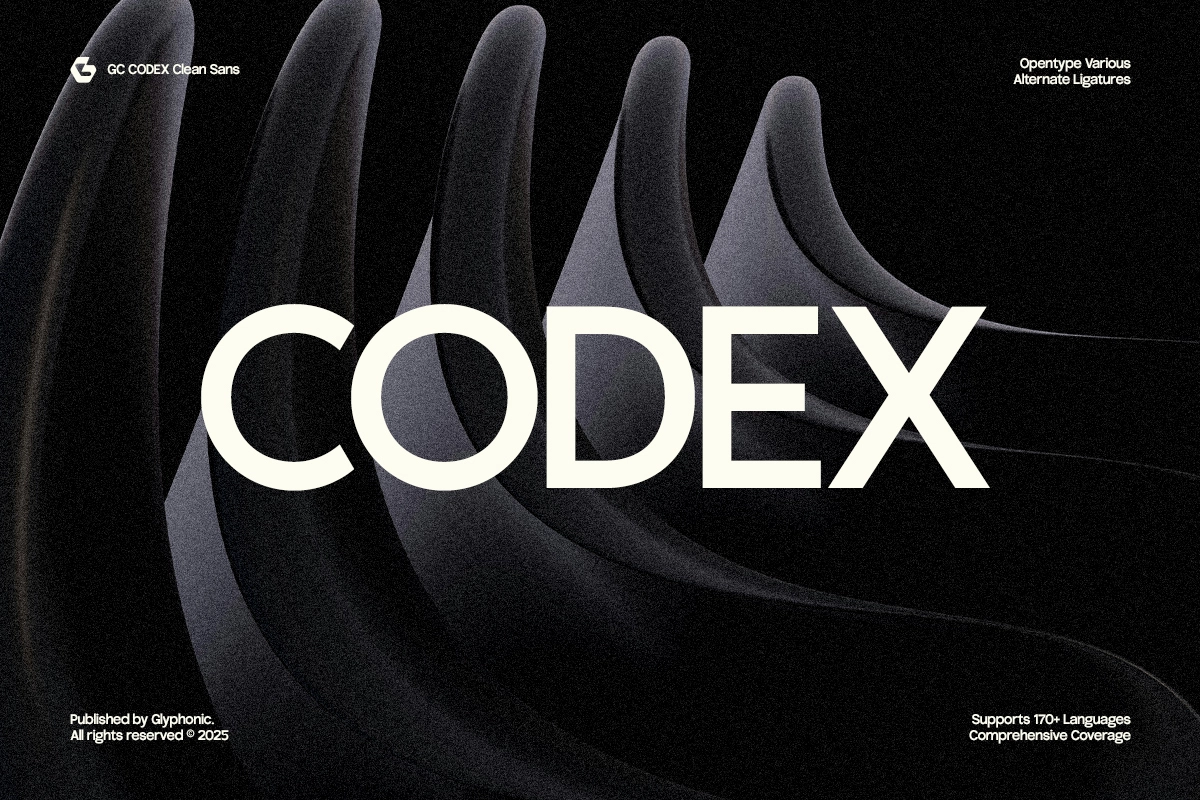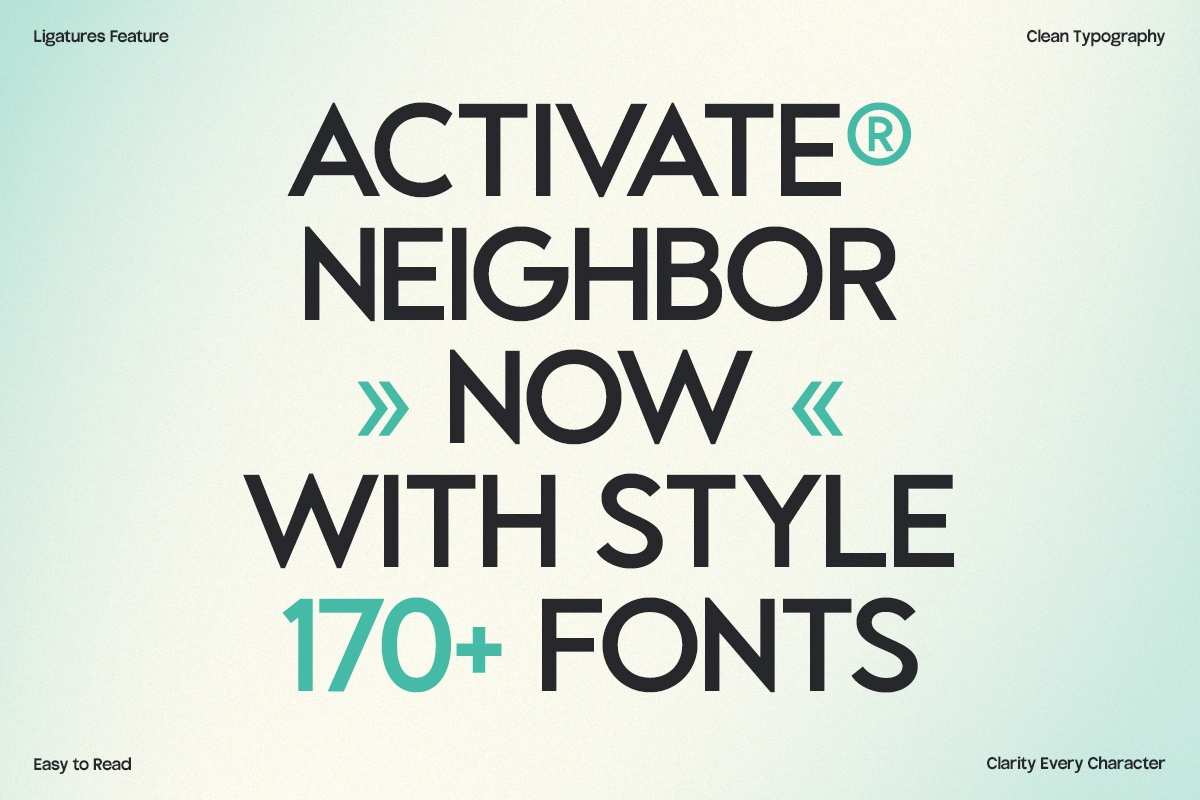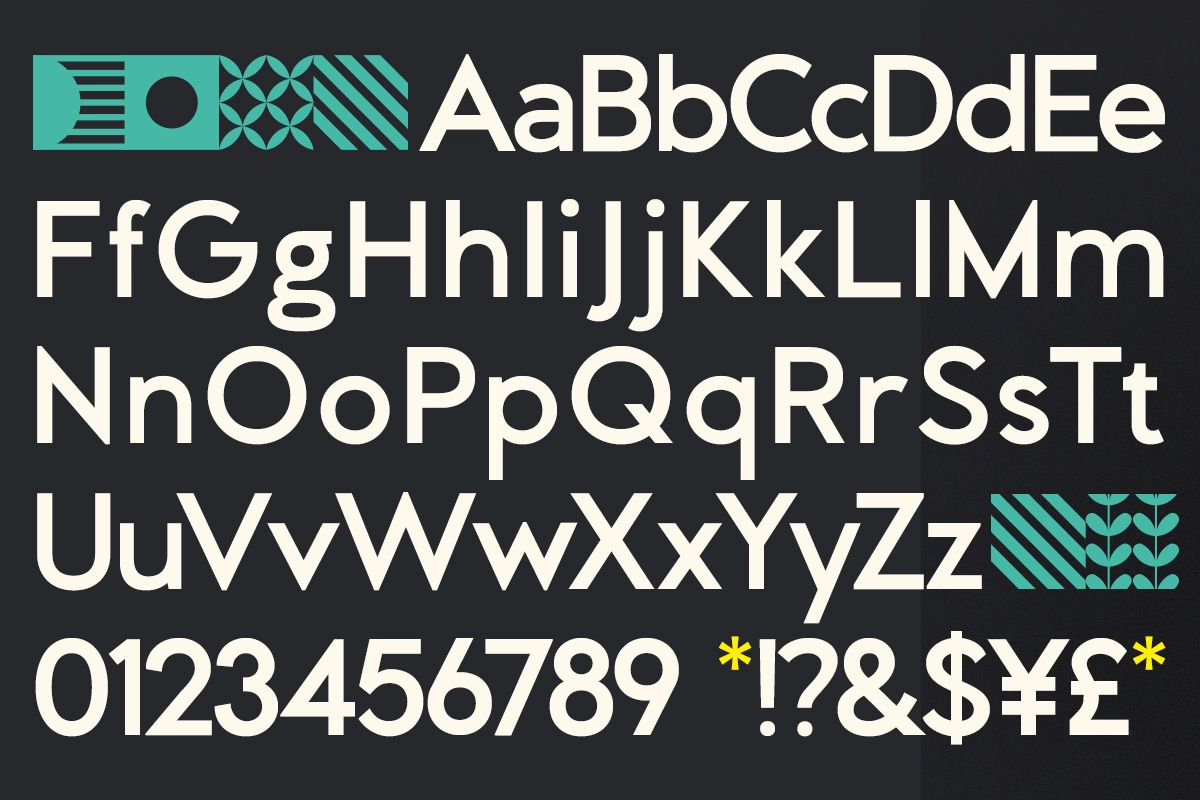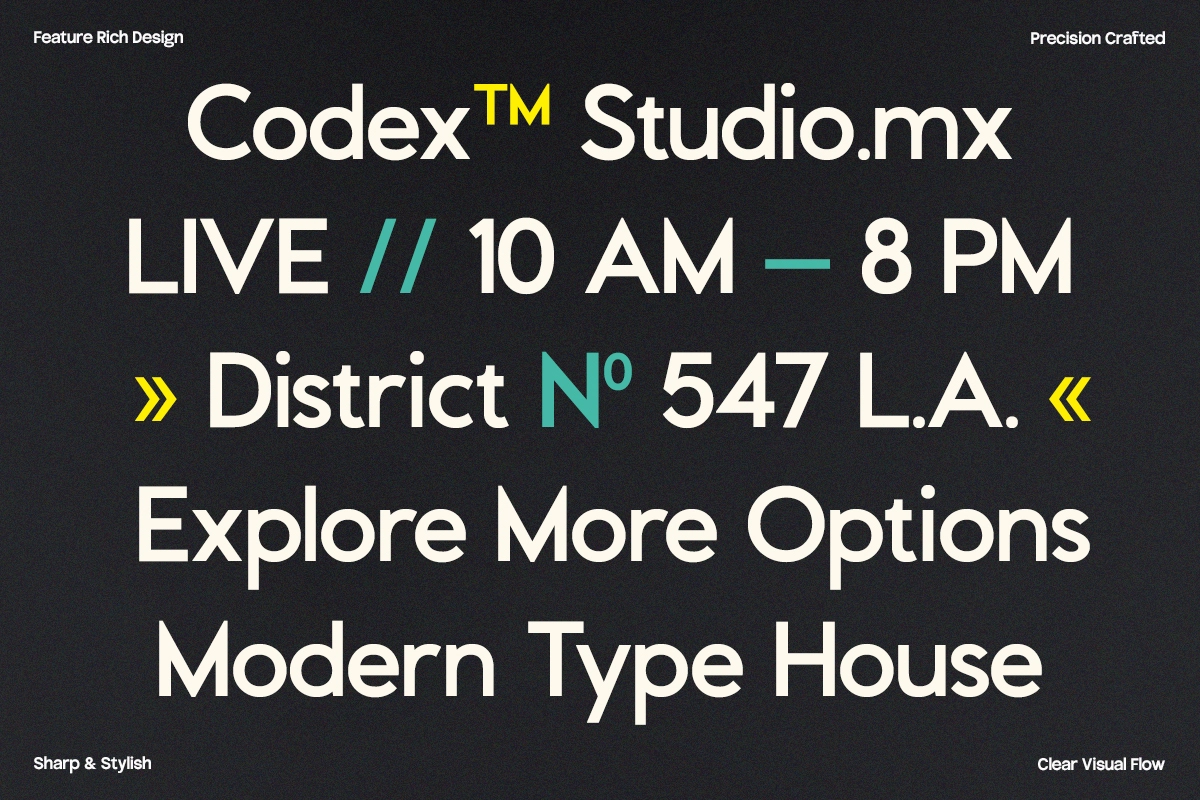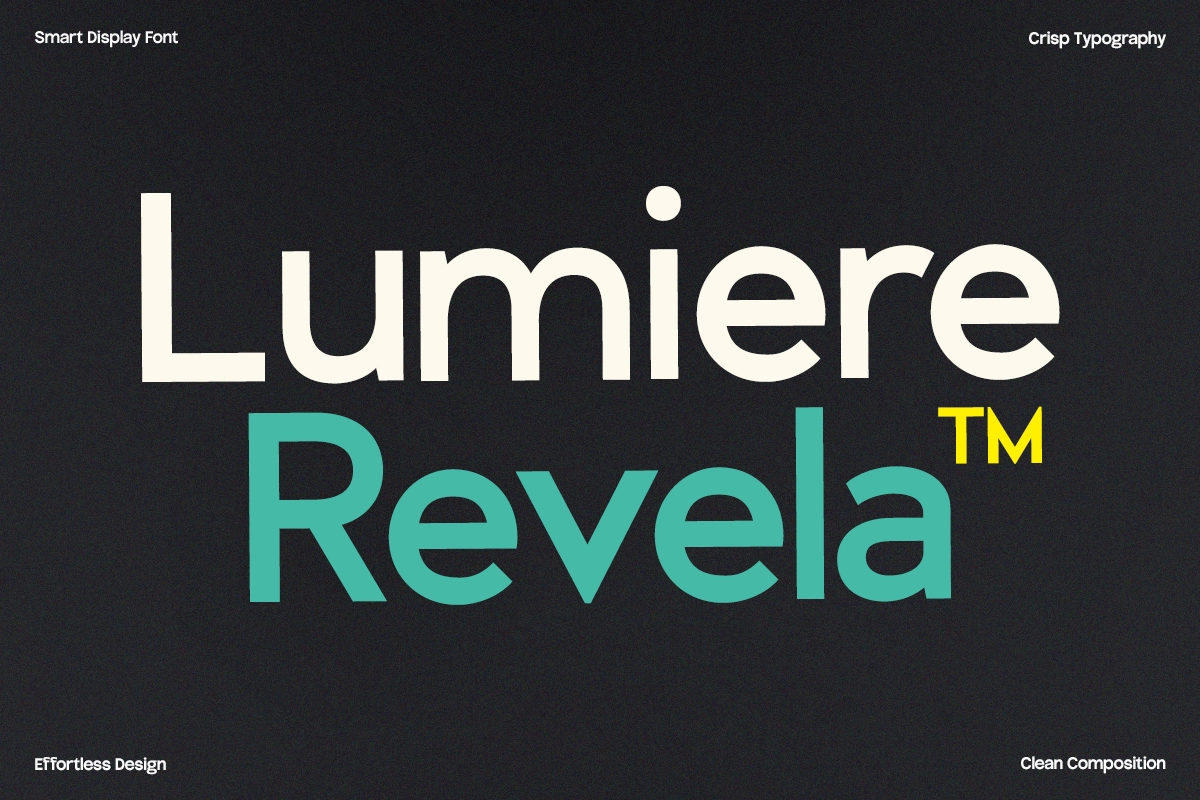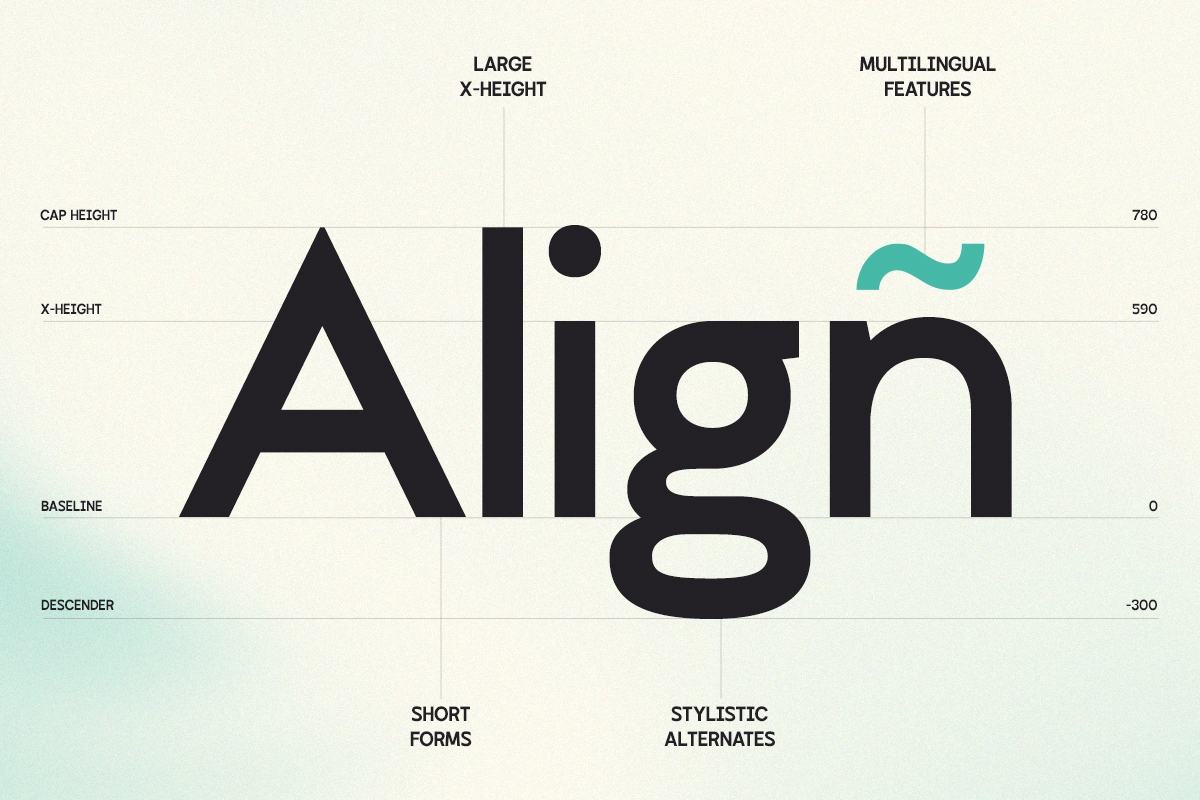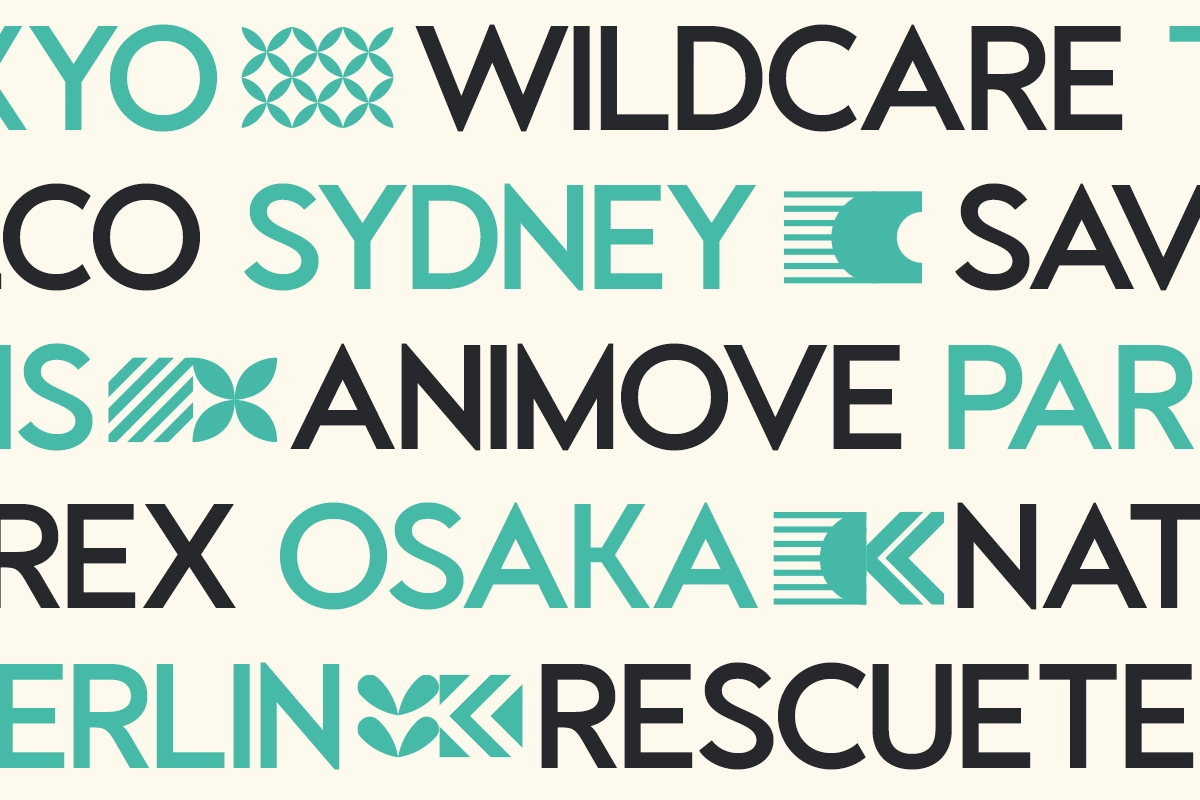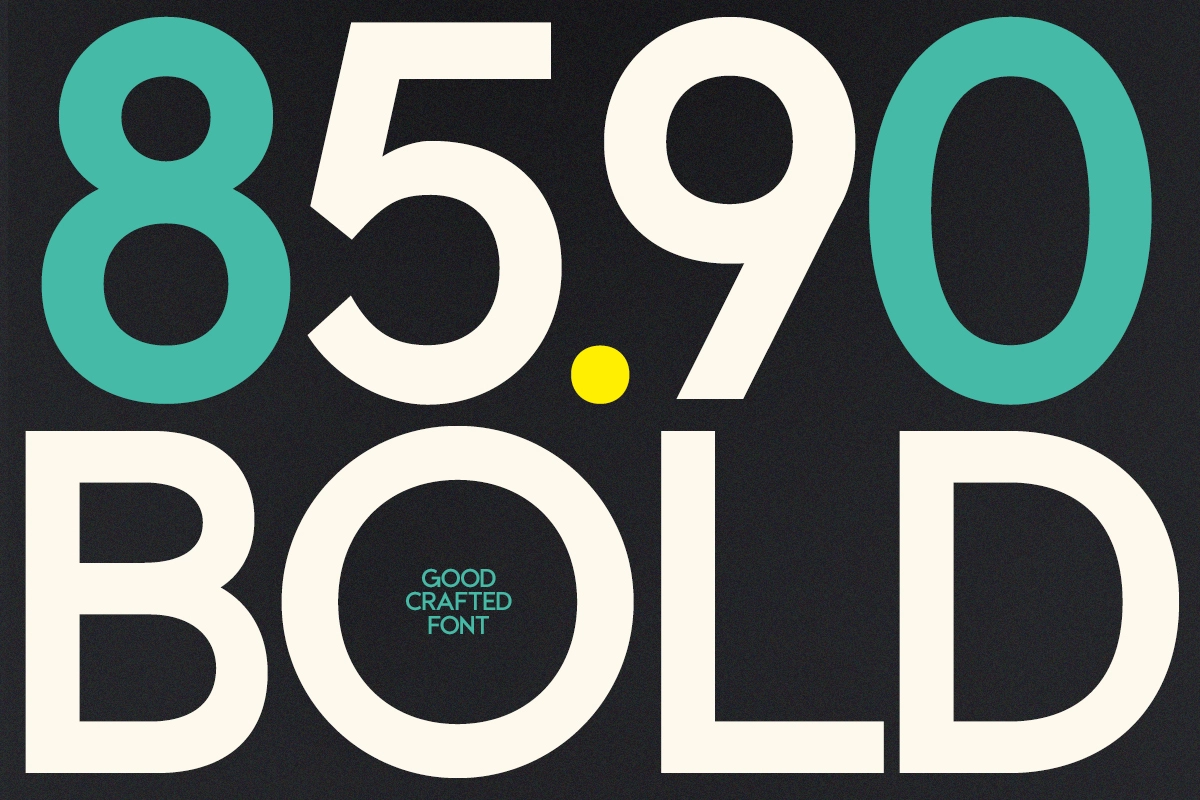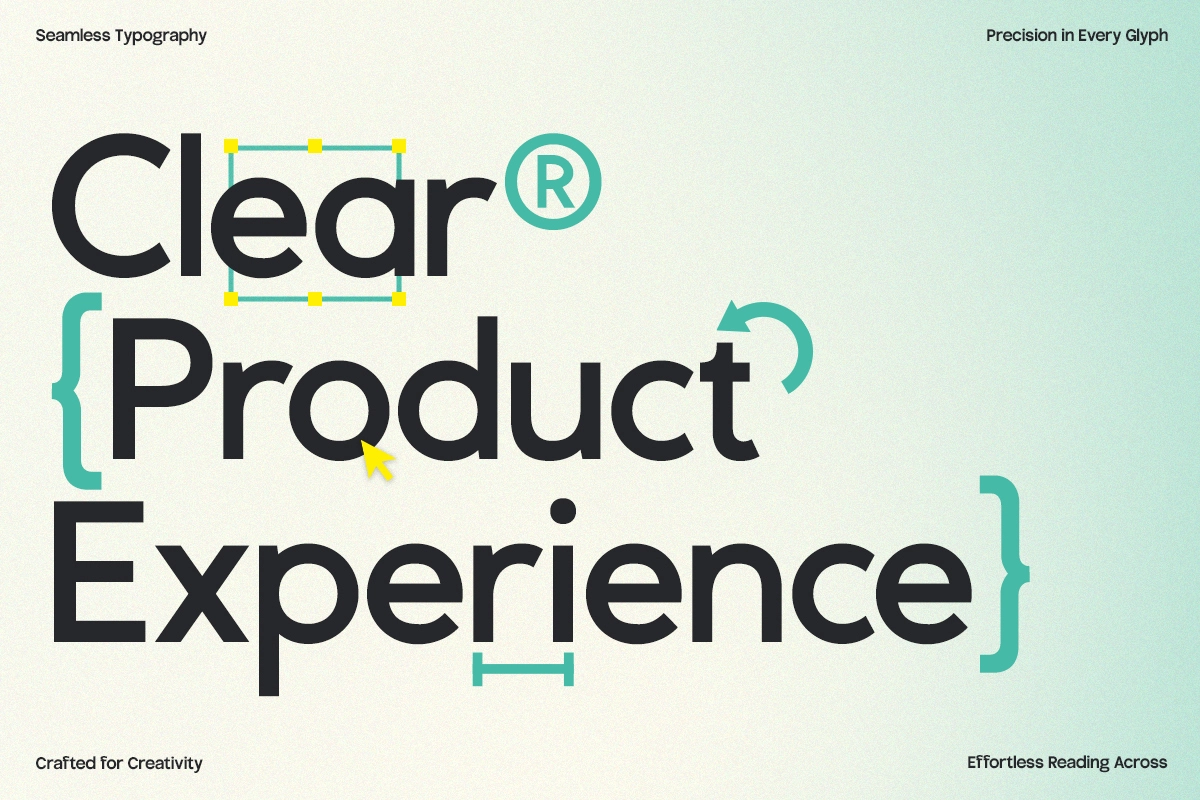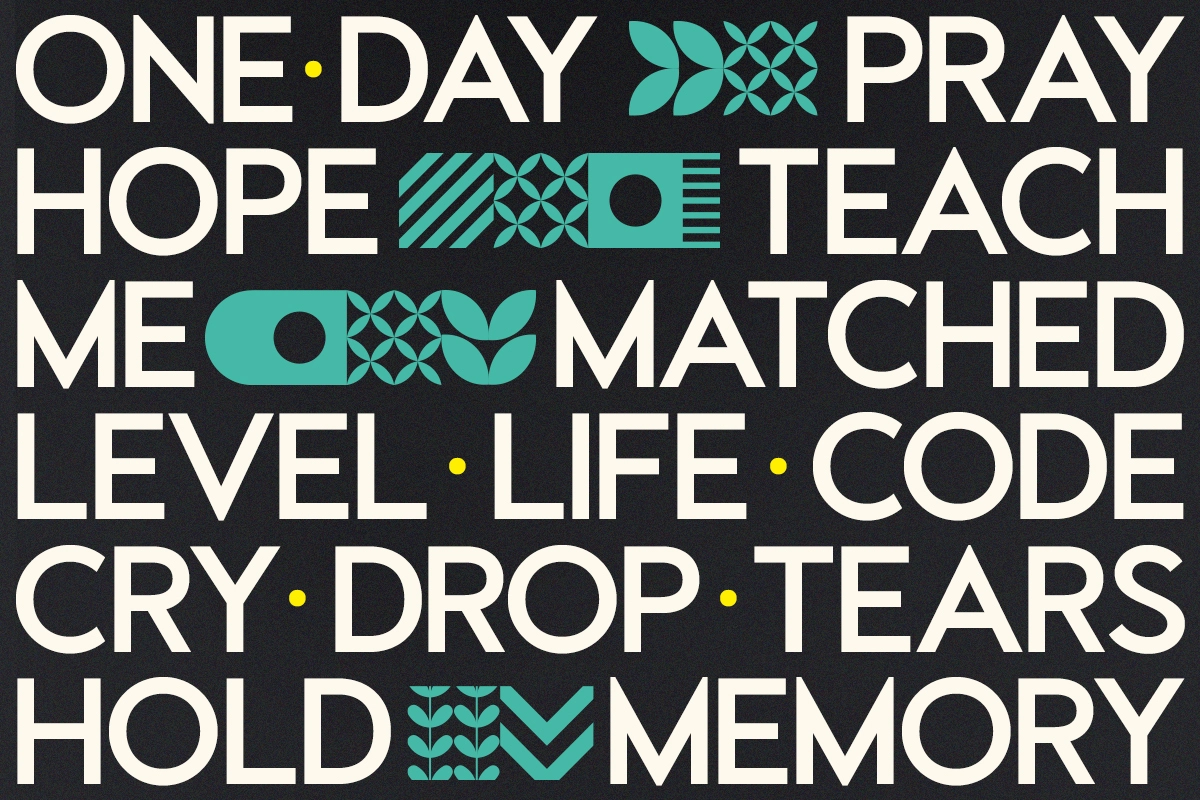
GC Codex – A Neo-Sans with Clarity
GC Codex is a neo-grotesque sans-serif typeface that blends geometric precision with modern clarity. Crafted for designers who value balance and minimalism, it’s perfectly suited for headlines, branding, logos, digital interfaces, packaging, and editorial layouts. Its clean construction and confident tone make it a go-to choice for high-impact visual communication.
With its uniform stroke widths, sharp terminals, and subtly softened curves, GC Codex delivers a crisp, professional aesthetic while maintaining warmth and approachability. Whether you're working on tech brands, futuristic posters, or minimalist web design, this typeface offers unmatched flexibility and clean style.
• Ligatures & Stylistic Alternates
• Numbers & Punctuation
• Multilingual Support (170+ Languages)